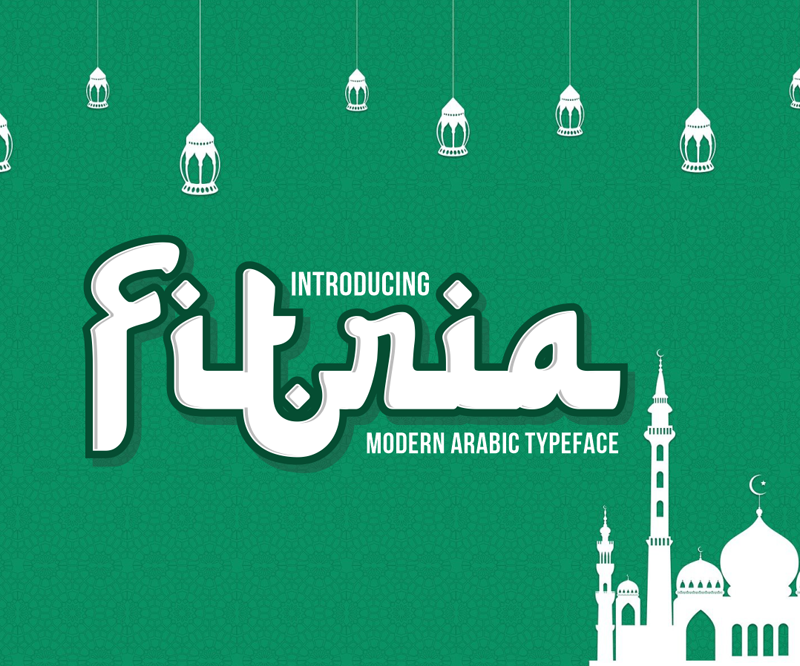
Preview and download Fitria Font. Created by Almaz.id in Foreign look Arabic styles with Demo license.
Fitria Fonts brand new display font in Arabic style. This font is made an alphabet version which is done like the Arabic letter in ancient times. This demo font is for PERSONAL USE ONLY! Please contact me before any commercial use. My fonts for free use allowed only in personal project, non-profit and charity use. If you make money from using my fonts, Please purchase a commercial license here : https://almazstd.com/fonts/fitria/ But any donation are very appreciated. PayPal account for donation : https://www.paypal.me/almazstd For more information about my fonts, please check on my web; www.almazstd.com THANK YOU... :) |